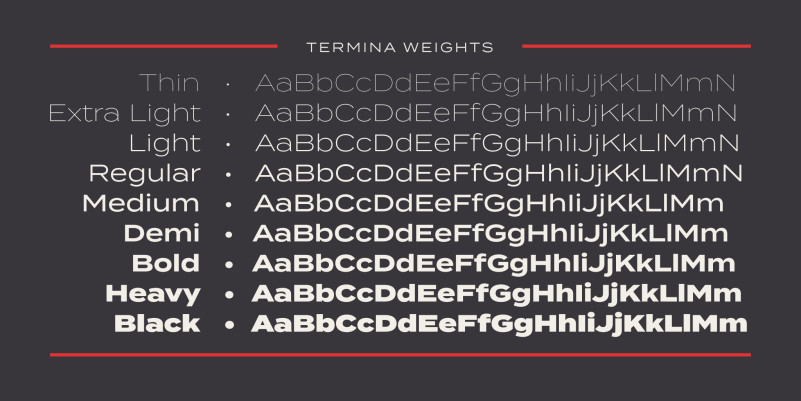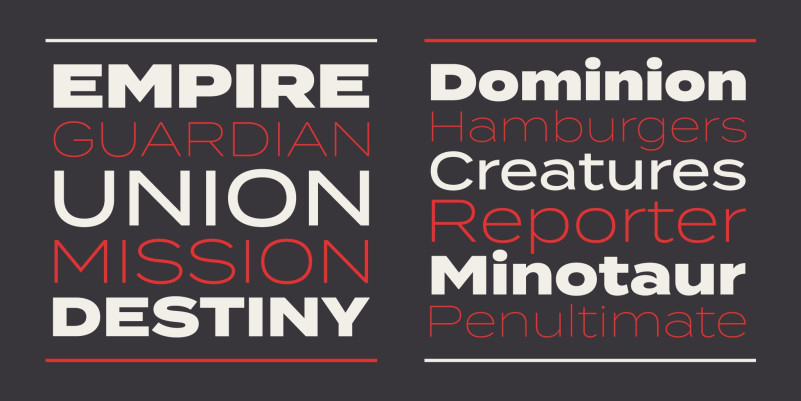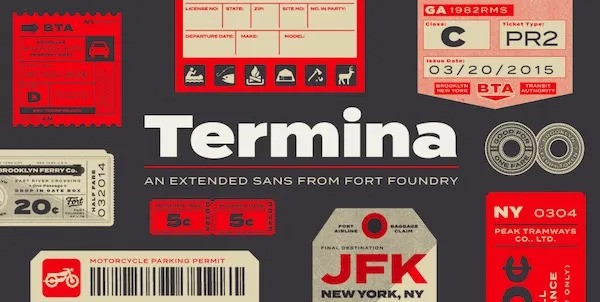
Termina Font
It’s time to see our impressive font, Termina Sans Serif Font. It’s an elegant modern sans serif font family that was designed and published by Fort Foundry along with 9 different gorgeous styles. It includes Case-Sensitive Forms, Small Capitals, Stylistic Alternates, Old Style Figures, and much more. This font has also over 700 stunning glyphs.
Termina font represents an important breakthrough in the understanding of the concept of handwriting with certain rules and mechanics.